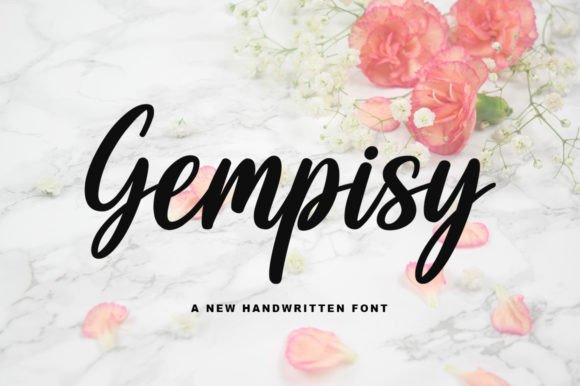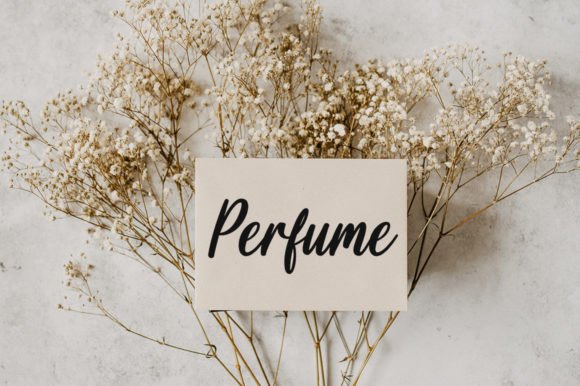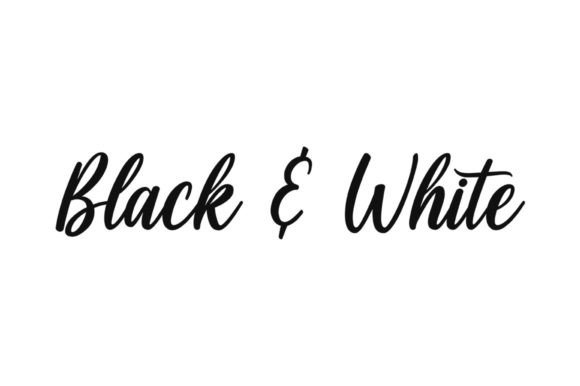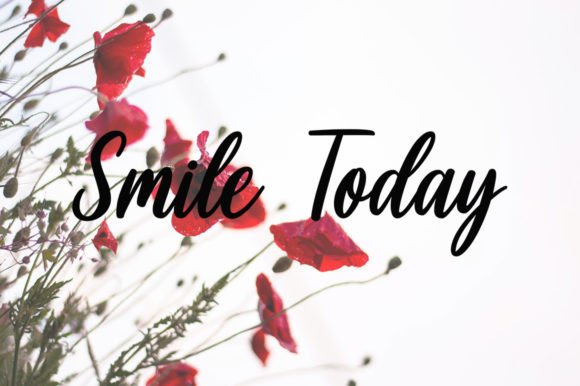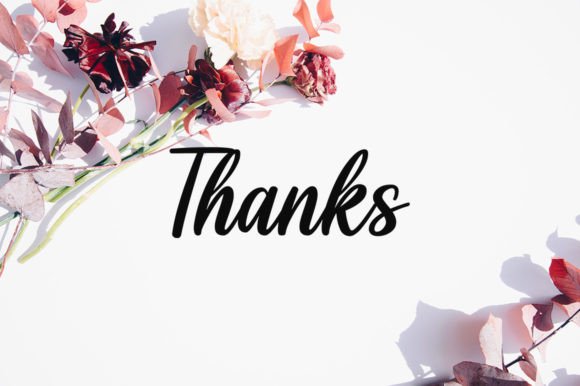
About Gempisy
Gempisy is a neat and casual handwritten font. Whether you’re using it for crafts, digital design, presentations, or making greeting cards, this font has the potential to become your favorite go-to font, no matter the occasion!